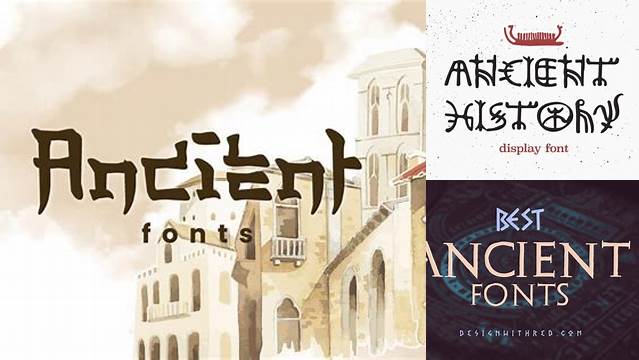
Download Ancient Fonts: A Guide To Timeless Typography
Are you ready to journey back in time and infuse your designs with the elegance and mystique of bygone eras? Then, ancient fonts download is your gateway! The world of typography is a treasure trove of history, culture, and artistic expression, offering a unique opportunity to add a touch of timelessness to your projects. Whether you're a graphic designer, a writer, or simply a history enthusiast, the allure of ancient fonts download is undeniable. These typefaces aren't just about letters; they're vessels of stories, carrying the weight of civilizations and the artistry of generations past. Today, we'll dive deep into the fascinating world of ancient fonts download, exploring their origins, styles, and how you can integrate them into your creative endeavors. Get ready to unlock a world of visual storytelling that will captivate your audience and set your work apart.
H2: The Allure of Ancient Fonts: Why Download and Use Them?
Guys, have you ever wanted to add a dash of history to your designs? That's where ancient fonts download comes in! It's more than just picking a pretty font; it's about tapping into the power of visual storytelling. When you choose to download and use ancient fonts, you're not just selecting letters; you're choosing to tell a story. These fonts carry with them the weight of history, evoking a sense of nostalgia, sophistication, and authenticity. Think about it: a font used in ancient Rome instantly transports your audience to that era, creating an immersive experience. Why is this so appealing? Because humans are naturally drawn to narratives, and these fonts provide a shortcut to engaging your audience on a deeper level. They allow you to communicate a message without even saying a word. This is why the option to download ancient fonts is crucial for creatives.
H3: Enhancing Branding and Design Aesthetics
For designers, using ancient fonts download can be a game-changer in branding. Imagine crafting a logo for a brand that embodies tradition, quality, or a touch of the arcane. An ancient font instantly conveys those values, building trust and recognition with your target audience. It's a powerful tool for differentiation, especially in a market saturated with generic designs. Plus, ancient fonts come in a variety of styles, from the bold, imposing serifs of Roman inscriptions to the elegant, flowing scripts of medieval manuscripts. These variations offer endless possibilities for customization, allowing you to create a unique brand identity. You can use them in various design projects, from websites and book covers to posters and social media graphics. Using ancient fonts download allows you to create a visual connection with the viewer that transcends the literal meaning of the words, crafting an emotional response. This makes your message more memorable and impactful.
H3: Evoking Emotions and Setting the Mood
Beyond branding, the ancient fonts download process can drastically affect the emotional impact of your designs. Different fonts evoke different emotions. A classical Roman font might exude authority and stability, perfect for a legal firm or a museum. On the other hand, a Gothic font could add an air of mystery and intrigue, ideal for a fantasy novel or a gothic-inspired event. By carefully selecting your font, you can instantly set the mood and influence how your audience perceives your work. Imagine creating a website for a historical documentary. Using a font from the period can create a sense of authenticity and immerse the viewer in the subject matter. Or, for a game, perhaps you'd like to use a font that's reminiscent of ancient civilizations. The ability to control these elements is a powerful asset for any designer or content creator. That is why ancient fonts download is so important to explore!
H2: Exploring Different Styles: Types of Ancient Fonts Available
Alright, let's get down to the nitty-gritty of ancient fonts download! The world of ancient fonts isn't a monolithic thing. There's a diverse range of styles to choose from, each with its own unique history and aesthetic. Understanding these styles is key to selecting the perfect font for your project. We'll break down some of the most popular categories and highlight their key characteristics.
H3: Roman Fonts: The Pillars of Classical Typography
When we talk about ancient fonts download, Roman fonts often come to mind first. Inspired by the inscriptions on ancient Roman buildings and monuments, these fonts are characterized by their strong serifs, elegant proportions, and sense of authority. They're the perfect choice for projects that require a touch of classicism, formality, or gravitas. Think about the iconic Trajan font, widely used in movies and branding. It's a prime example of the Roman style. When you download ancient fonts like these, you're accessing a visual language that has influenced Western typography for centuries. These fonts are incredibly versatile, fitting perfectly in headings, body text, or even logos. However, be mindful that Roman fonts can sometimes feel a bit formal, so consider your audience and the overall tone of your project before using them.
H3: Greek Fonts: The Foundation of Western Alphabets
Greek fonts are another crucial area to explore when you download ancient fonts. These fonts offer a unique blend of beauty and symbolism, reflecting the rich intellectual and artistic heritage of ancient Greece. They often feature elegant curves, distinctive letterforms, and a sense of harmony that's hard to find elsewhere. When you download ancient fonts based on Greek styles, consider their origins. Greek fonts can add a touch of sophistication, cultural depth, or even a hint of philosophical inquiry to your designs. These fonts are ideal for academic publications, artistic projects, or anything that calls for a touch of classic elegance. It's important to consider the specific style of the Greek font. There are variations from the earliest forms to the more refined styles of the Hellenistic period. Each style offers a slightly different aesthetic, so choose accordingly.
H3: Egyptian Fonts: Hieroglyphs and Beyond
If you want to go beyond the familiar when you download ancient fonts, Egyptian fonts offer a truly unique visual experience. Inspired by hieroglyphs and the artistic motifs of ancient Egypt, these fonts are characterized by their distinctive, often stylized, letterforms. They're perfect for projects that require a sense of mystery, exoticism, or ancient wisdom. Remember, the Egyptian writing system was not just about letters; it was also about symbols and visual storytelling. Using Egyptian fonts can create a rich and immersive experience for your audience, transporting them to the world of pharaohs, pyramids, and the afterlife. However, keep in mind that these fonts can be more challenging to read, so use them judiciously. Consider using them for headings, decorative elements, or projects where the visual impact is paramount. Also, remember when you download ancient fonts that there are many interpretations, so research your sources carefully.
H2: Where to Download Ancient Fonts: Reliable Sources and Websites
Ready to jump in and download ancient fonts? Fantastic! But before you start, it's essential to know where to find these treasures. Not all font sources are created equal, so it's essential to stick to reliable websites that offer quality fonts and respect licensing agreements. Let's look at some of the best places to kickstart your font journey.
H3: Premium Font Websites: Offering Quality and Variety
When you're serious about your projects, premium font websites should be your go-to destination for ancient fonts download. These sites often offer a vast selection of high-quality fonts, including many professionally designed ancient styles. They typically have excellent customer support, flexible licensing options, and regular updates. Some popular choices include MyFonts, Fontspring, and Creative Market. These sites provide you with access to a range of font styles, from the bold and striking to the elegant and subtle. However, keep in mind that premium fonts usually come with a price tag. But in many cases, it's worth the investment to ensure you're getting a font that's well-designed, versatile, and compliant with licensing regulations. When you download ancient fonts from premium sources, you're also supporting the font designers and the creative industry.
H2: Conclusion: Embrace the Timeless Elegance of Ancient Fonts
So there you have it! We've explored the wonderful world of ancient fonts download, from their historical origins and diverse styles to the best places to find them and tips on how to use them effectively. Now you're equipped with the knowledge to bring the magic of the past to your creative projects. Remember, typography is a powerful tool. Ancient fonts can help you tell compelling stories, evoke emotions, and create a unique visual identity. So go ahead, download some ancient fonts and start creating! It's time to infuse your work with timeless elegance.